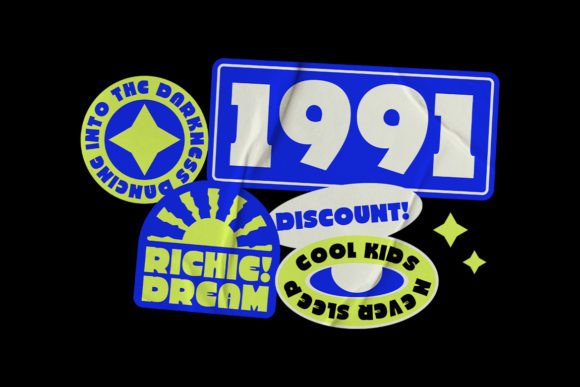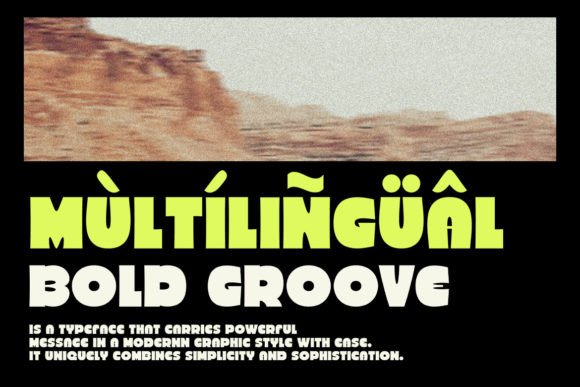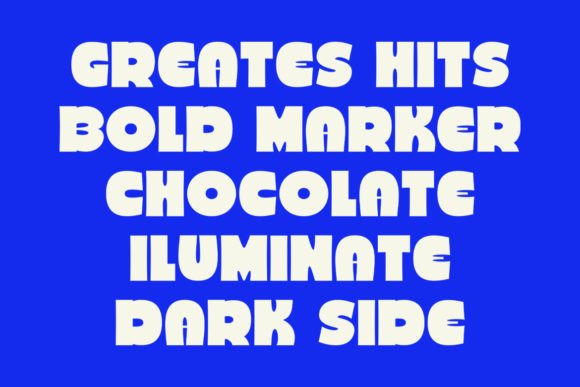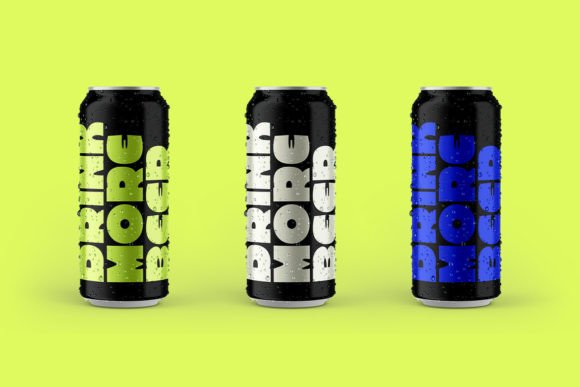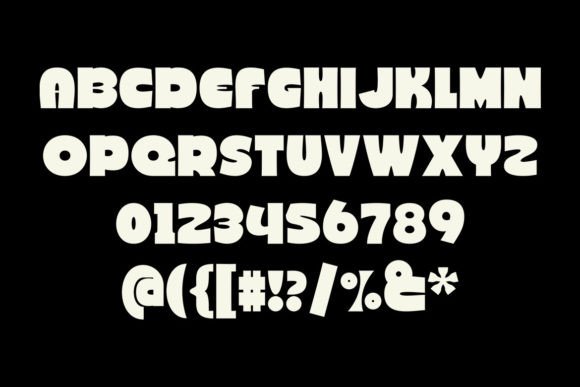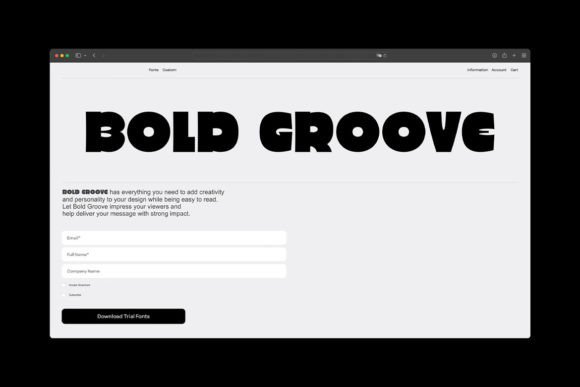
The Perfect Font for Making a Statement
You know that moment when you’re brainstorming ideas for your next design project, and suddenly, a spark of creativity strikes? It’s like the whole world opens up, and you can envision the perfect visual representation of your message. For designers, this feeling is a rush like no other. But, let’s face it – sometimes, the perfect font can be the missing piece that takes your design from good to great.
Enter Bold Groove Font, a typeface that embodies the perfect blend of simplicity and sophistication. With its modern graphic style, Bold Groove Font is the ultimate tool for designers who want to add a touch of personality to their work while maintaining readability. Whether you’re working on a branding project or creating a social media campaign, Bold Groove Font has got you covered.
Bold Groove Font Key Features
- Font Family: Bold Groove is a sans-serif font family.
- Font Sizes: Supports a wide range of font sizes, from 8pt to 72pt.
- Unique Characteristics: Bold Groove features a unique blend of geometric and organic elements, giving it a distinctive and modern look.
Bold Groove Font Review
Overall, I think the Bold Groove font is a great addition to any designer’s toolkit. ✨ It’s perfect for creating eye-catching headlines and adding a touch of sophistication to your designs. The font’s unique blend of modern and vintage elements makes it versatile and easy to use.
- Unique and stylish design that adds a touch of sophistication to any design
- Perfect for creating eye-catching headlines and title treatments
- Highly legible and easy to read, even at small font sizes
- Supports a wide range of languages and character sets
One thing to keep in mind is that the font may not be suitable for body text or long blocks of text. ⚠️ It’s a bit too ornate and can be overwhelming if used extensively. Additionally, some users may find the font’s irregularities to be distracting or difficult to read.
Overall, I think the Bold Groove font is a great choice for designers who want to add a touch of elegance and sophistication to their designs. With its unique design and high level of legibility, it’s a great option for creating eye-catching headlines and title treatments.
Getting the Most Out of Bold Groove Font
To get the most out of Bold Groove Font, use it in combination with bold colors and striking graphics to create eye-catching designs.
Experiment with different font sizes and styles to add depth and visual interest to your designs.
Bold Groove Font is ideal for:
- Music and entertainment branding
- Food and beverage packaging
- Travel and adventure branding